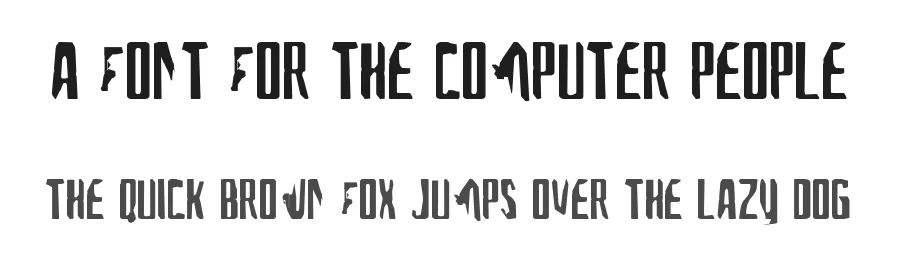
About Diamond Creek Font
| Designer | BLKBK |
Diamond Creek Font is a decorative font that shines as a display or heading face. Pair it with a clean sans-serif or serif font for body text β the contrast creates a clear hierarchy while the two styles stay balanced and easy to read.
Diamond Creek Font
by BLKBK Fonts